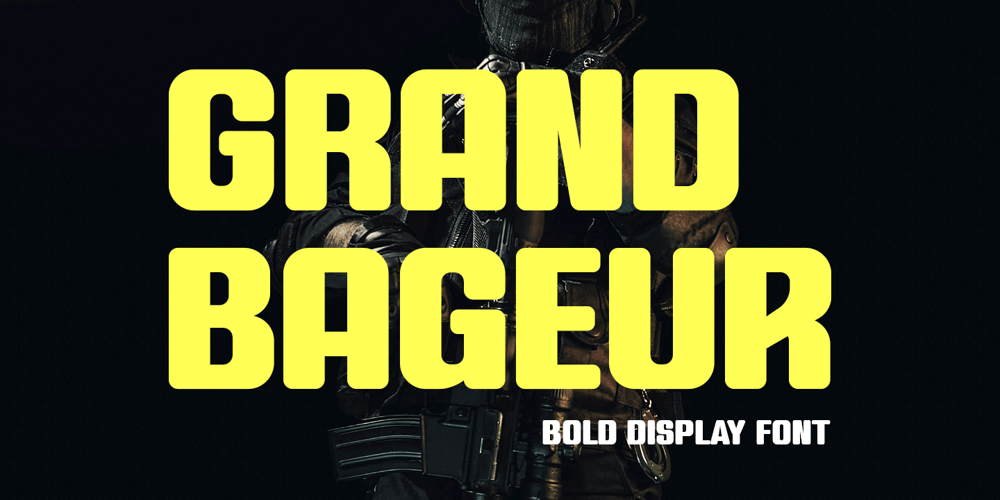
Grand Bageur
Grand Bageur font
Grand Bageur Font Family was designed by Ahmad Ramzi Fahruddin and published by Arterfak Project. Grand Bageur contains 2 styles and family package options. Meet Grand Bageur, a font that combines sporty strength with elegance. Its condensed, rounded-edge design makes it the perfect choice for logos, branding, and urban style projects. Whether you’re working on sports merchandise, posters, or headlines, Grand Bageur’s bold look in regular and slanted styles delivers a sleek, professional finish.Packed with uppercase and lowercase letters, numbers & symbols, stylistic alternates, ligatures, and multilingual support, Grand Bageur offers versatility for a range of creative needs. Make your designs stand out with this strong and stylish font, ideal for everything from stickers to quotes and beyond.